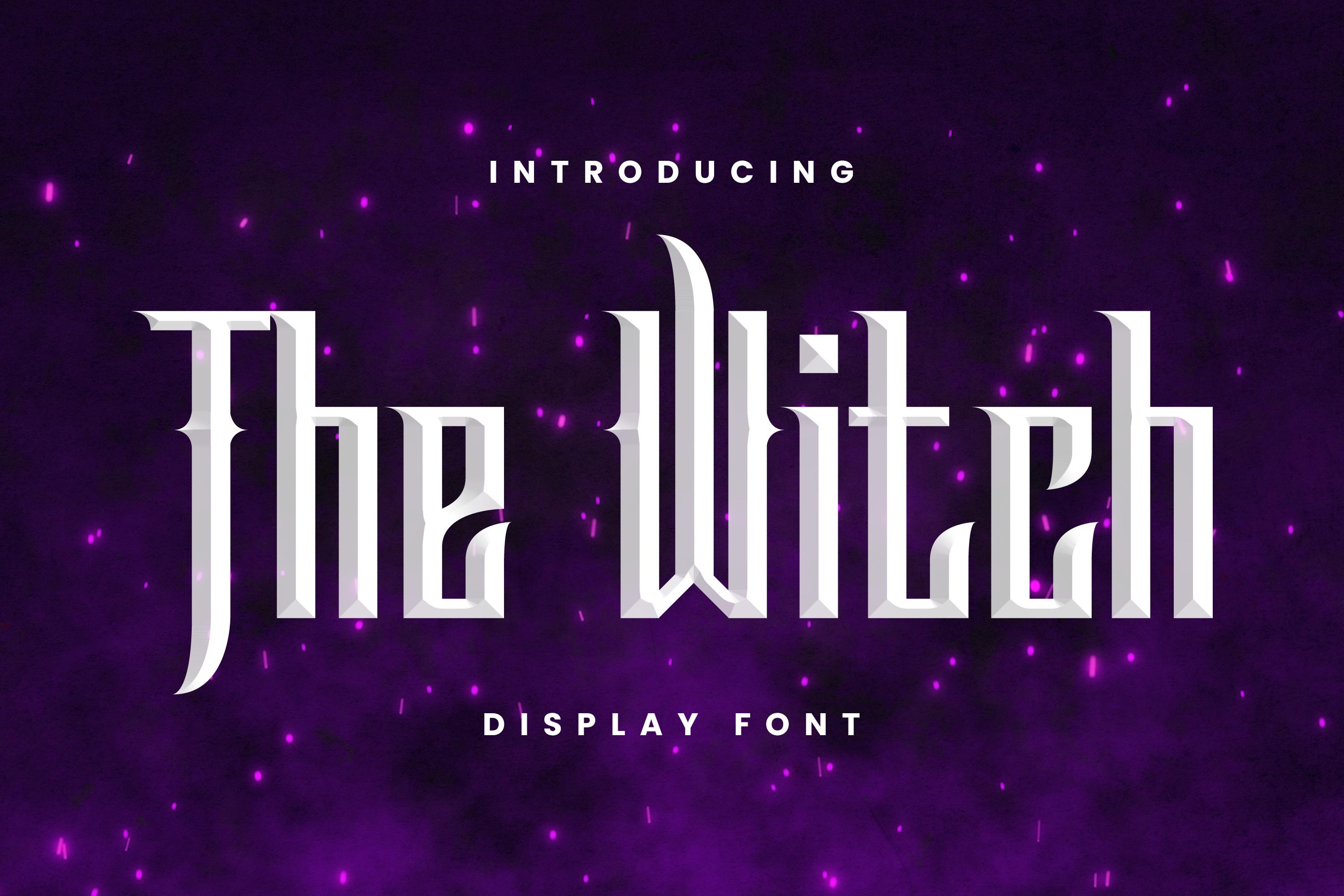
The Witch Font Description
The Witch is a cool, bold and assertive display font. It will elevate a wide range of crafting ideas, from cards, to branding, labels and much more. Add it confidently to your favorite creations and let yourself be amazed by the outcome generated.